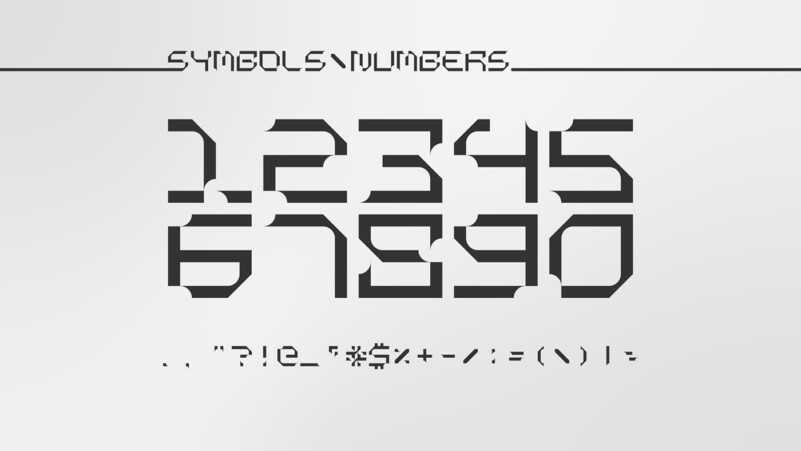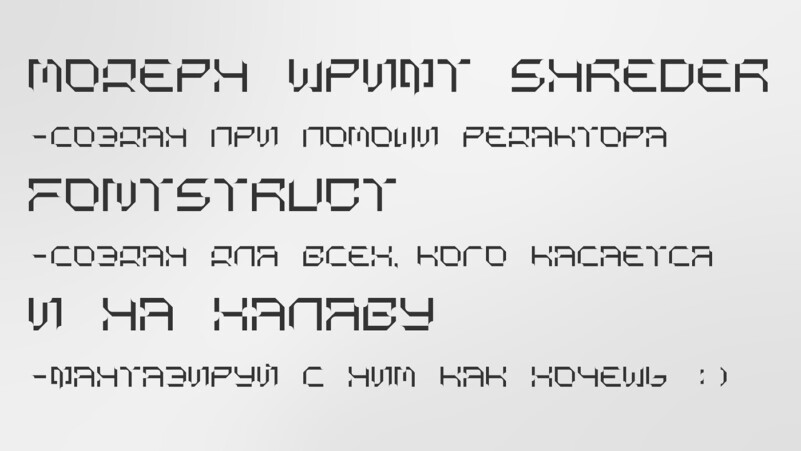
Shreder Font is a modern, elegant and futuristic look font. Made from font designer named VICTOR KMIT. This font is very suitable for use in headline, title, logo, poster, flyer, and anything that requires a unique geometric typeface with tribal motif.